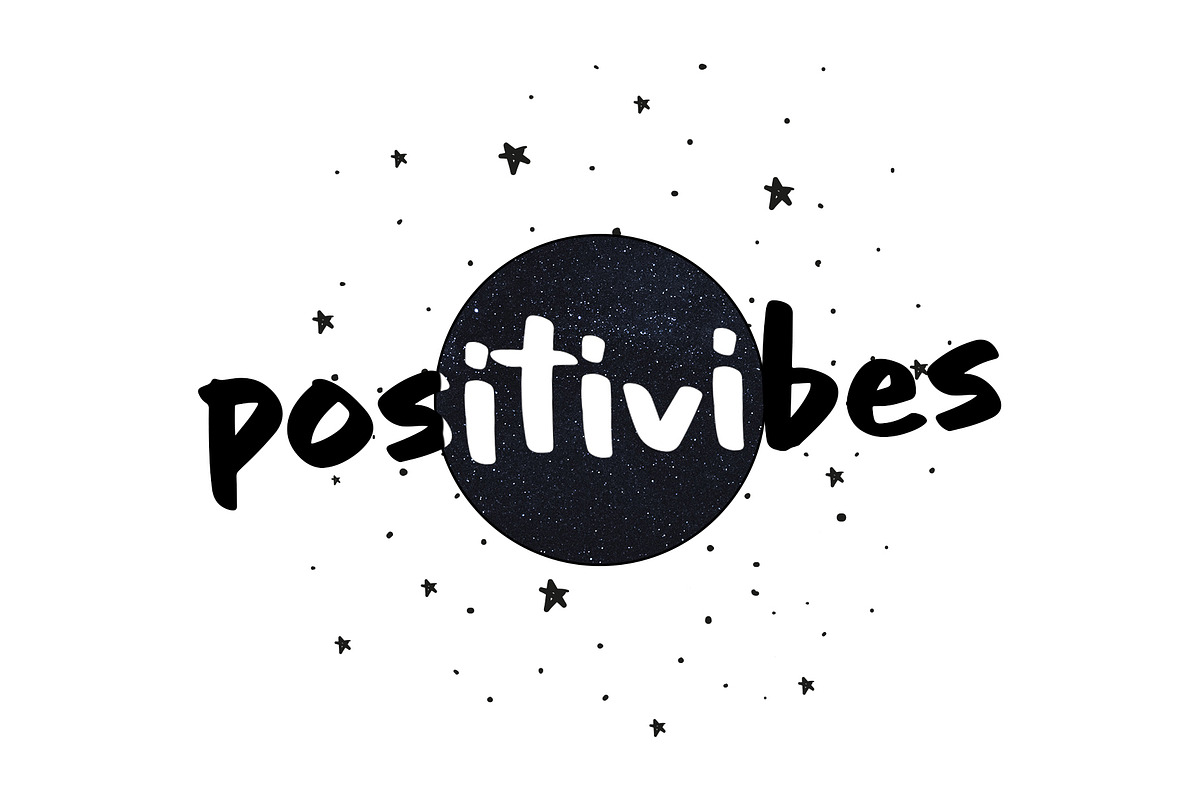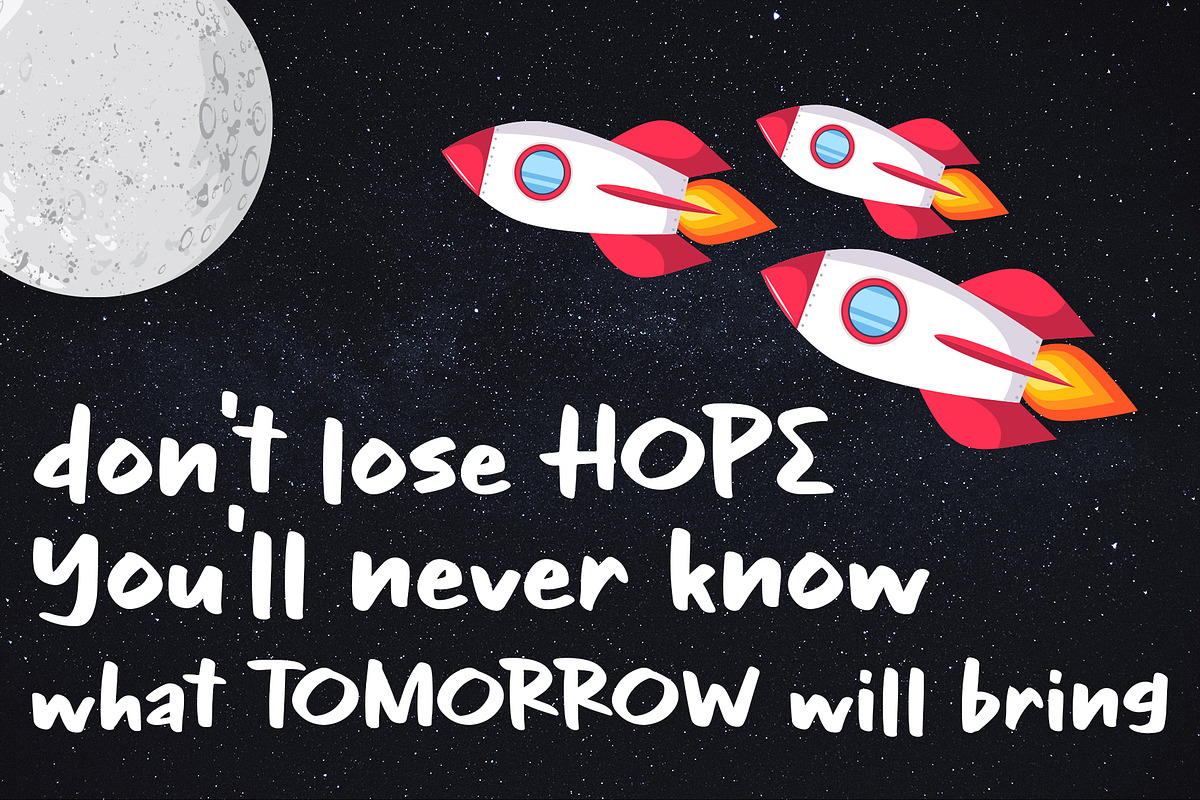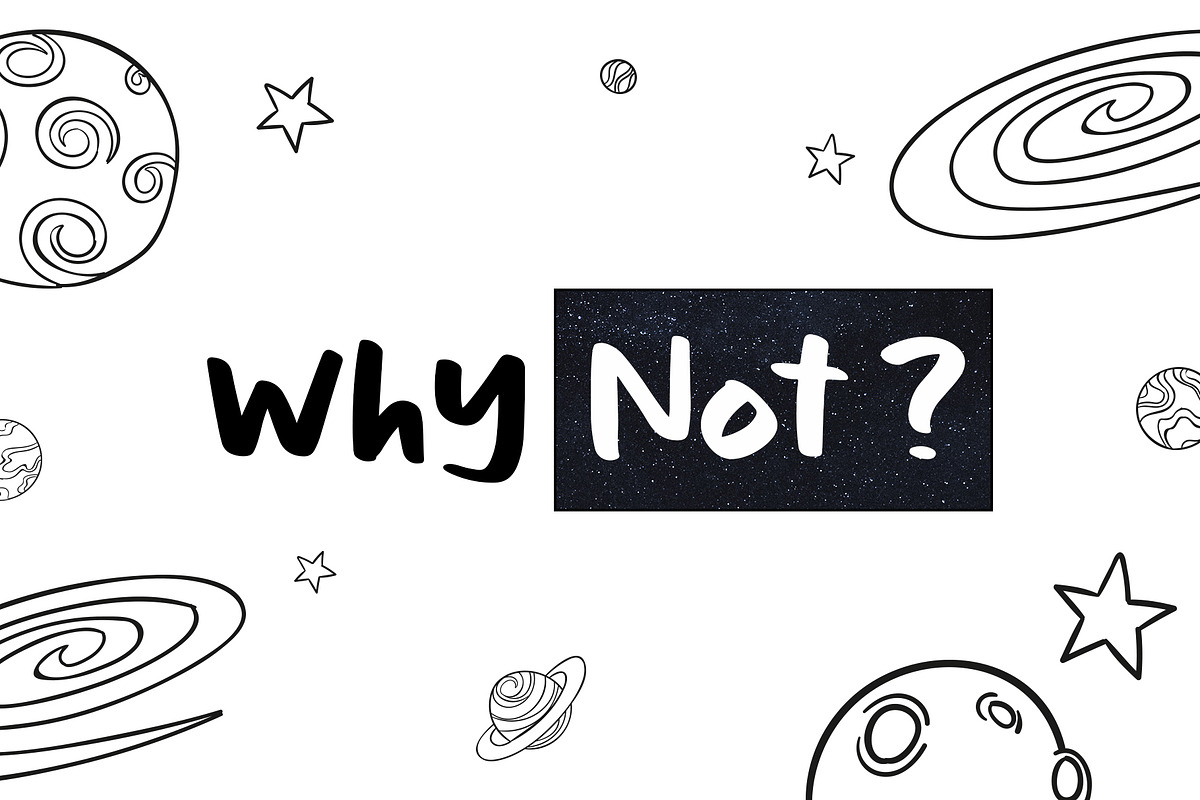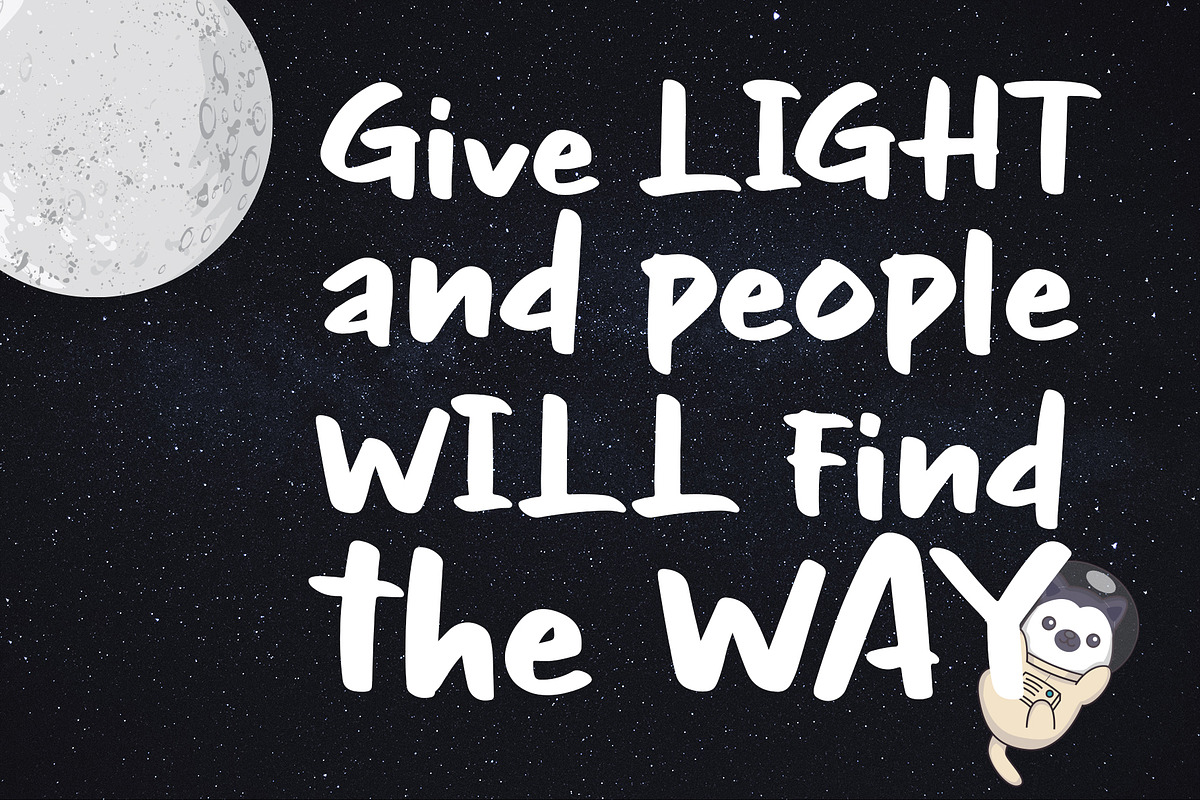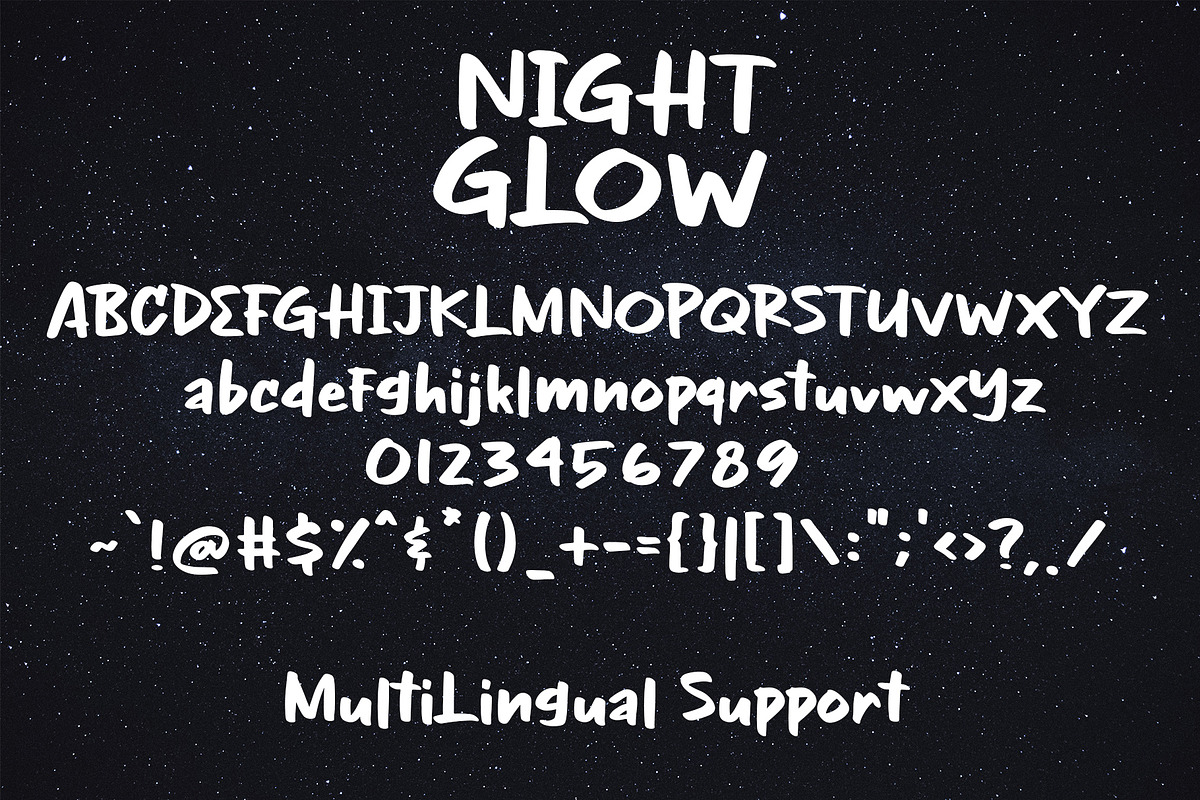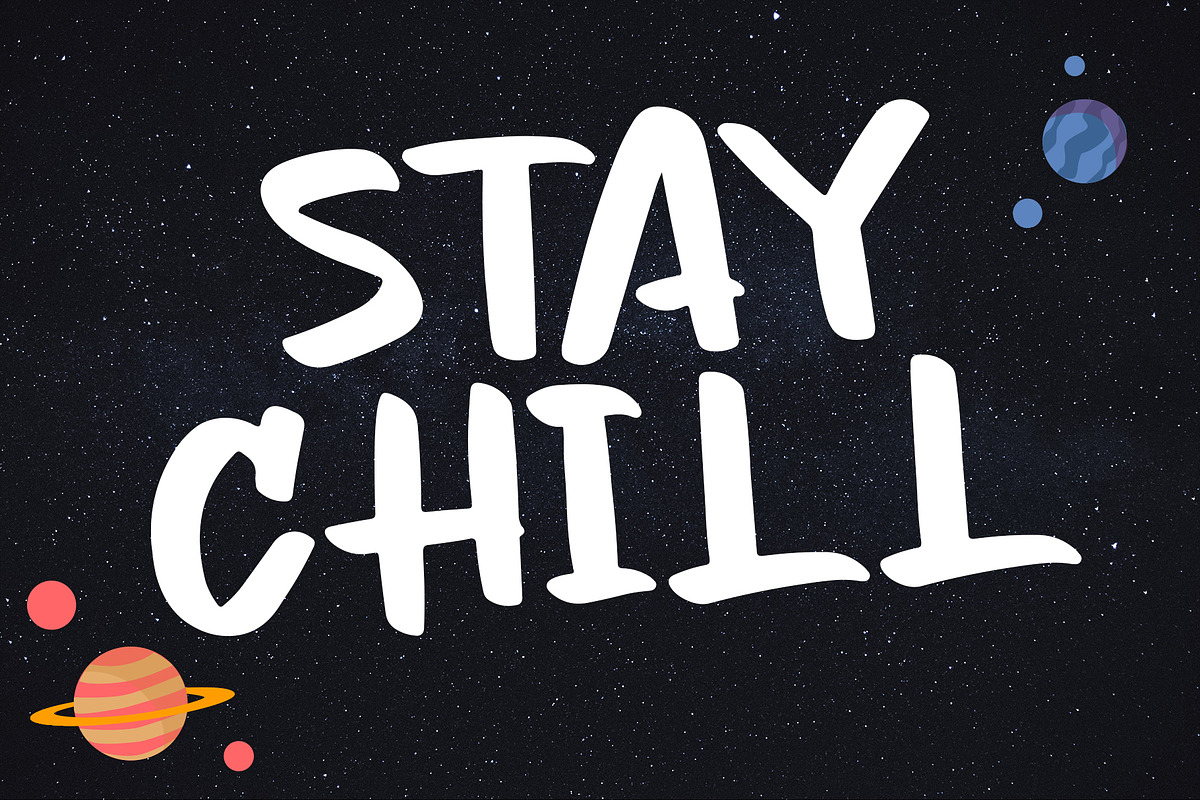
Night Glow - Handwritten Font
Night Glow is a fun and bold handwritten brush font. Great for any display or quote typography, branding or promotional stuff. Fall in love with the huge range of this font usage!
Night Glow - Handwritten Font by Dm Studio fits naturally into Branding, posters, packaging, typography.